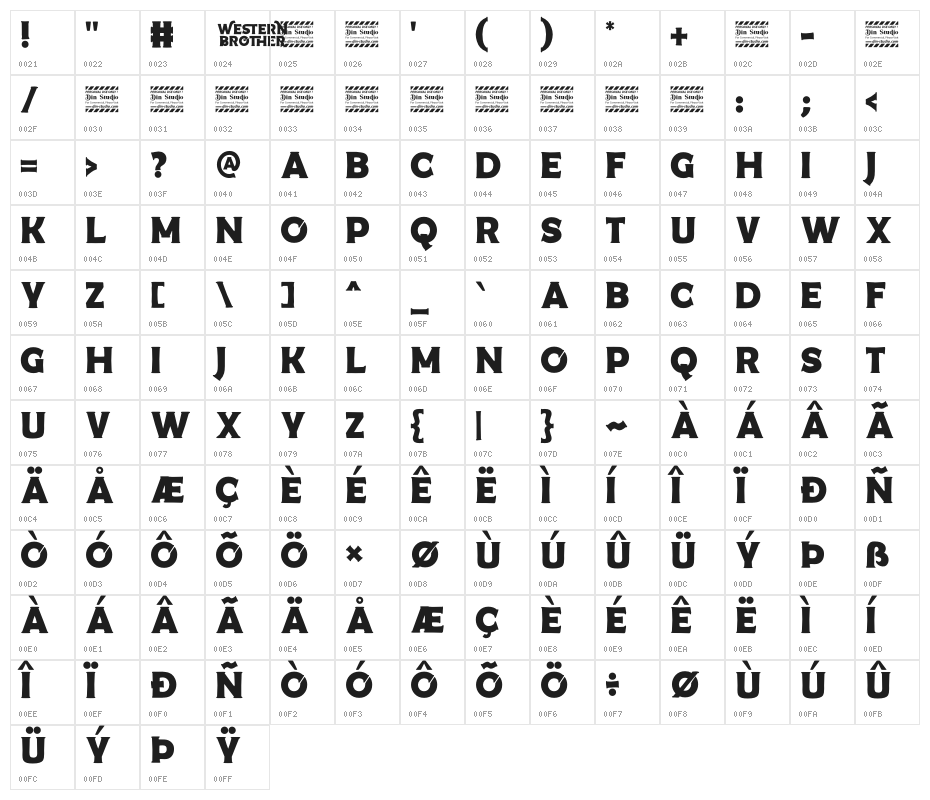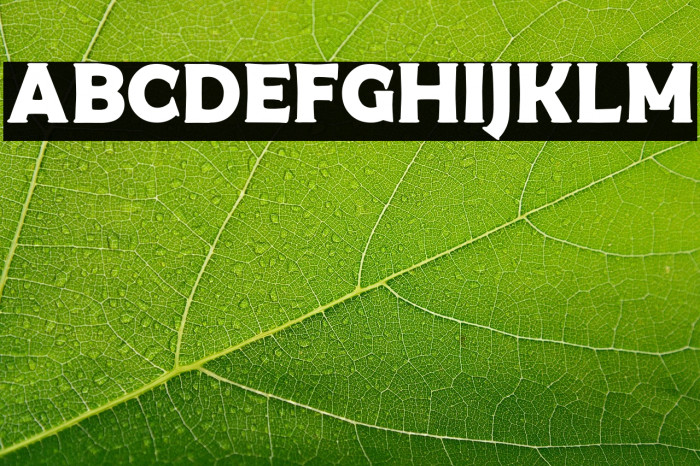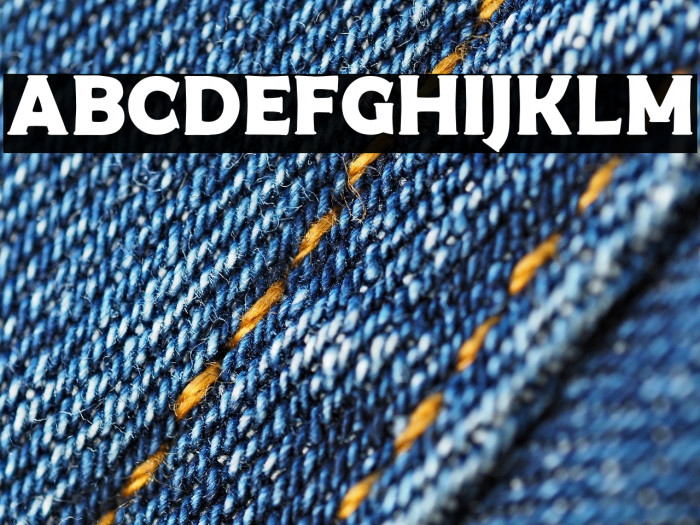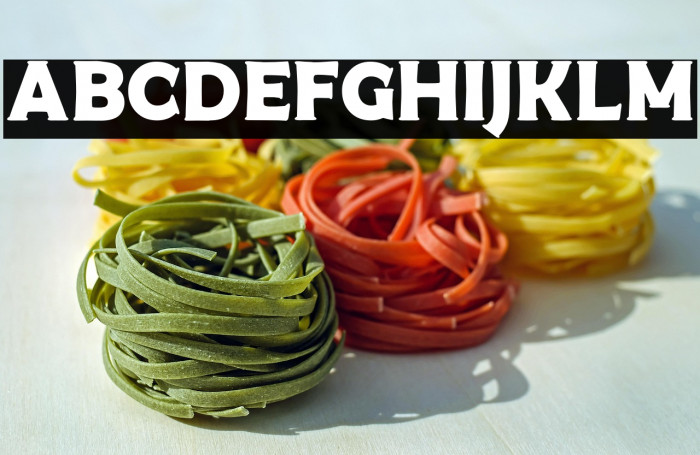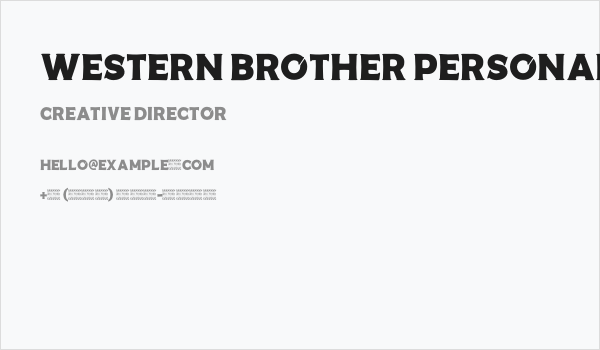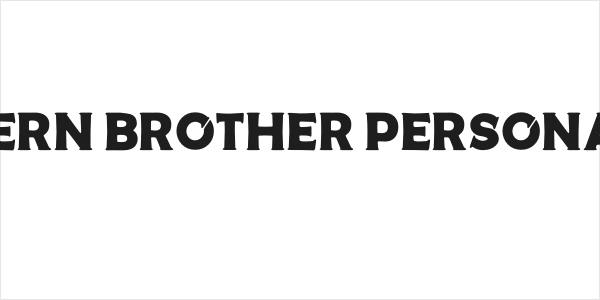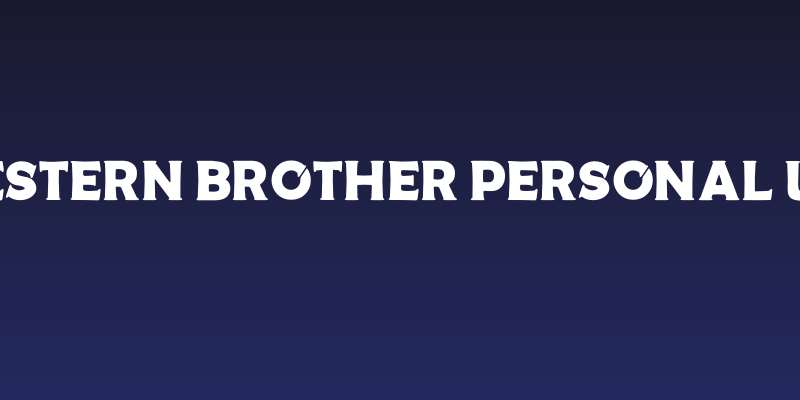
Western Brother Personal Use Font
Western Brother Personal Use Description
This font exudes a bold and rugged aesthetic, reminiscent of the classic Western style. The uppercase letters are characterized by strong, thick strokes with subtle serifs that add a touch of vintage flair. The lowercase letters maintain the same robust quality, ensuring consistency across text. The numbers and special characters are equally bold, making them stand out effectively. This font's design is ideal for capturing attention and conveying a sense of strength and tradition. Its unique style is perfect for projects that require a touch of the old West, with a modern twist.